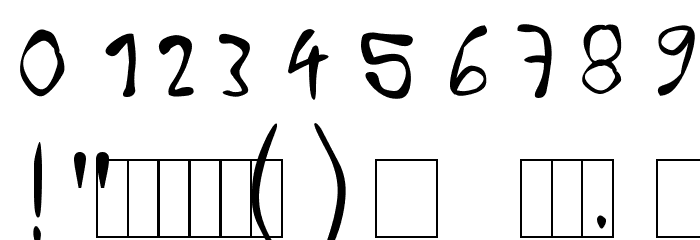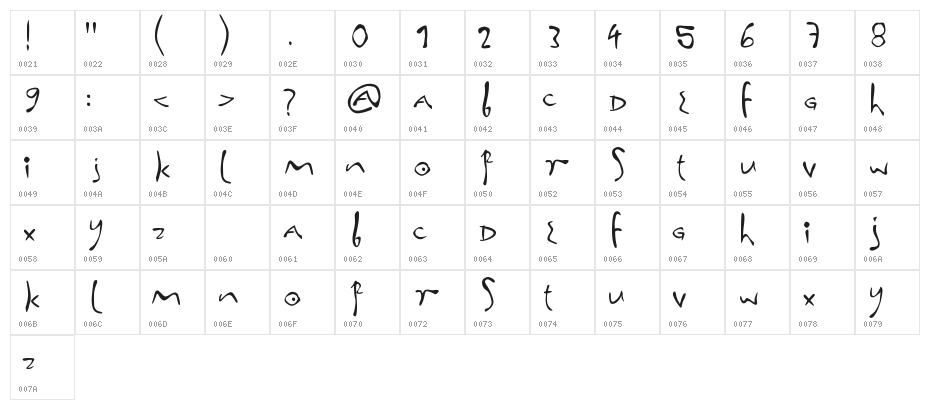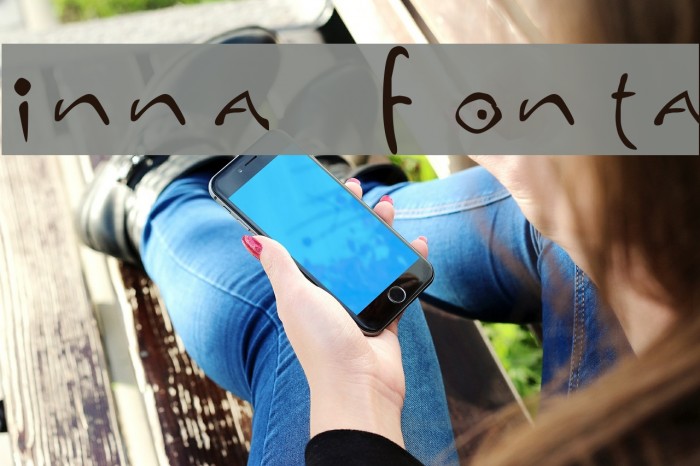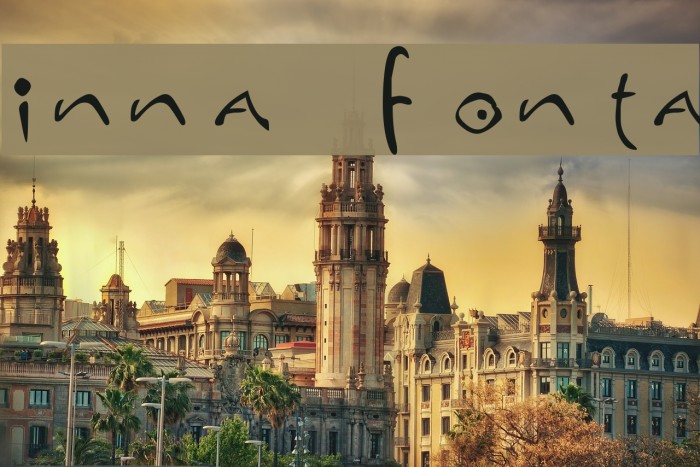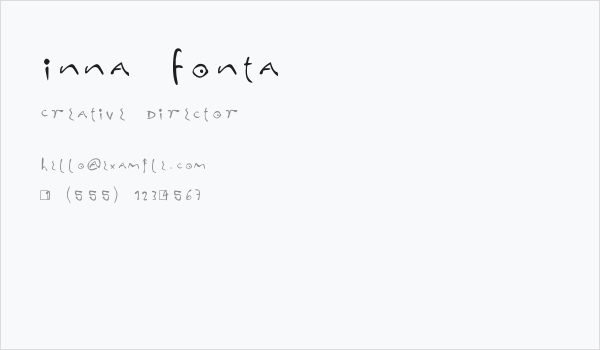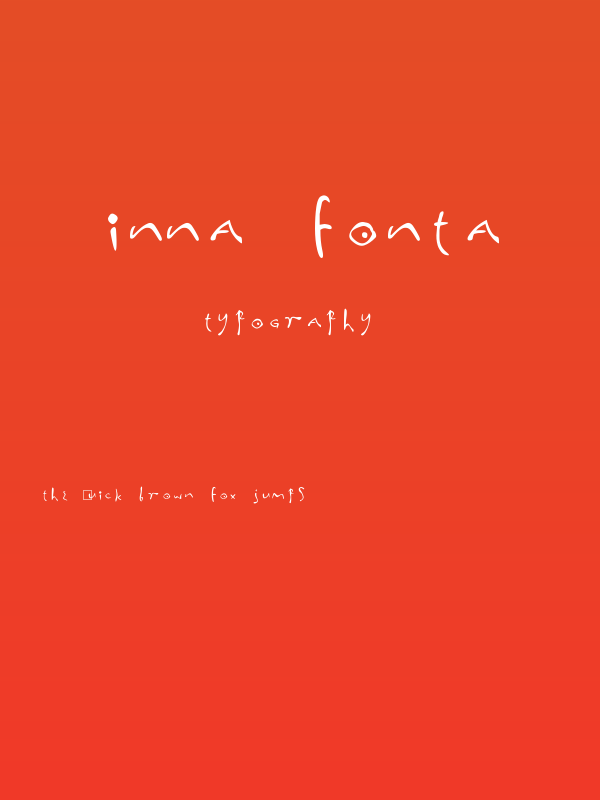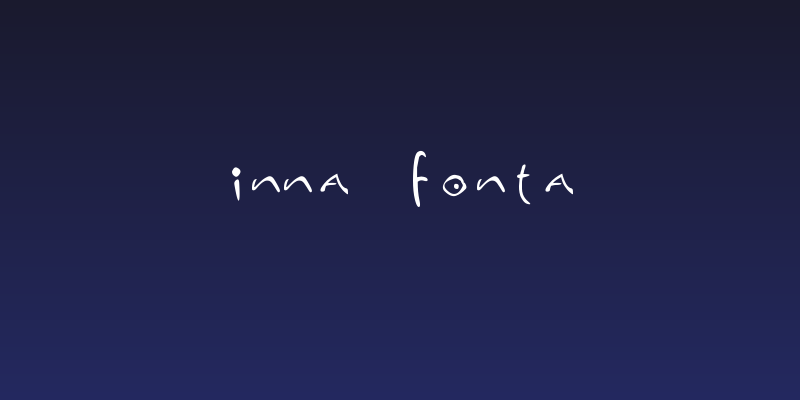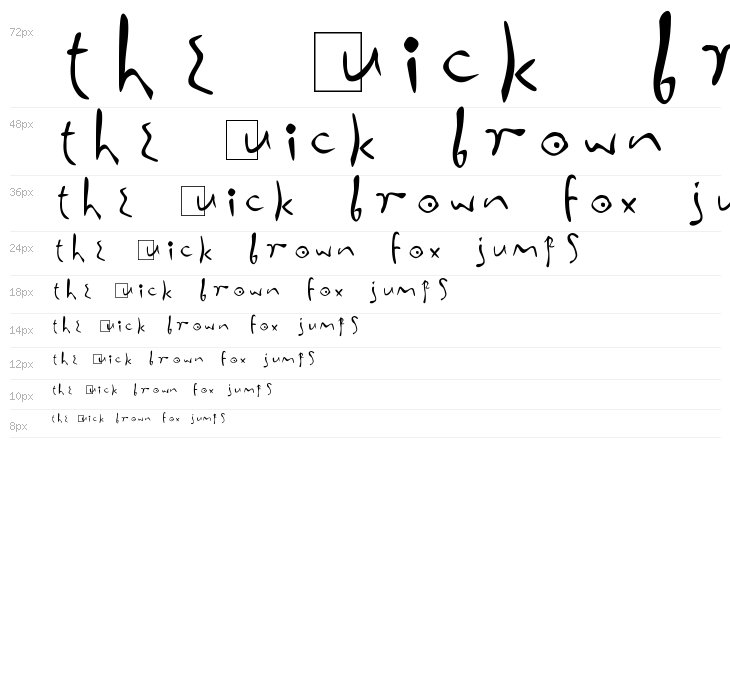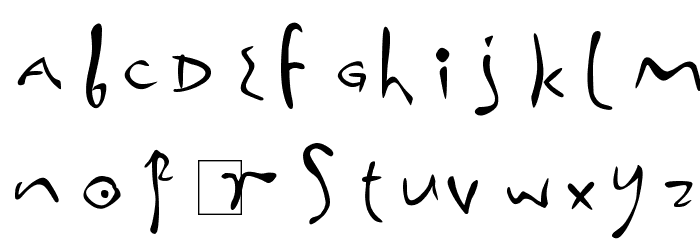
inna fonta Font
inna fonta Description
This font features a playful and whimsical style, characterized by its irregular and flowing letterforms. The strokes vary in thickness, giving it a dynamic and lively appearance. The uppercase and lowercase letters maintain a consistent style, with some letters displaying unique and artistic flourishes. The numbers and special characters follow the same playful design, making the font suitable for creative and informal projects. Its handwritten quality adds a personal touch, making it ideal for projects that require a friendly and approachable feel.
| Proposed Projects | Ideal for children's books, greeting cards, playful branding, and creative invitations. |